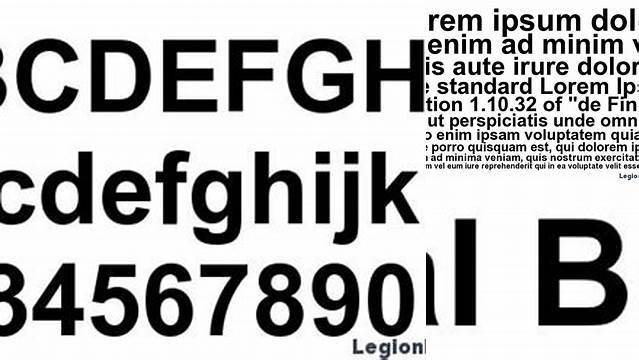
Legion Fonts: Unleashing The Power Of Arial Bold
Hey everyone! Today, we're diving deep into the world of legion fonts arial bold. This isn't just about a font; it's about a design choice, a statement, and a whole lot of visual impact. Get ready to explore the nuances, the best practices, and everything you need to know to harness the power of Arial Bold for your projects. Buckle up, because we're about to embark on a font-tastic journey!
1. What Exactly Are Legion Fonts?
Alright, let's start with the basics. When we talk about legion fonts arial bold, we're essentially referring to the use of Arial Bold within the context of design where it is heavily and consistently used. This means the font isn't just sprinkled in; it's a core element of the visual identity. Think of it as the foundation of your design, the rock-solid base upon which you build everything else. This strong foundation allows the overall message to be perceived as intended. So why Arial Bold? Well, Arial is a widely used, universally understood font, making it incredibly accessible. The 'Bold' part adds a sense of authority and draws immediate attention. This is particularly effective when you need to convey a message that demands attention and is meant to be clear and precise. This makes legion fonts arial bold an excellent choice for headlines, calls to action, and any text element you want to pop out from the page. It's not about being flashy; it's about being clear and getting your point across with maximum impact. Using it in the right context, the right size, and with the right spacing is crucial. We'll dive deeper into these aspects later, but just remember, the choice of Arial Bold isn't arbitrary. It's a deliberate design decision that carries weight.
It's also a sign of the times, a reflection of the accessibility and digital world. The widespread availability and readability of Arial make it a go-to choice for digital content. It's optimized for screen viewing, and it looks great on various devices, from smartphones to large monitors. Its legibility is unparalleled, which is why it's a favourite among designers and developers. It's a versatile font that adapts to different applications. Arial Bold is a workhorse font that's always ready to perform, whether it's for a website, a poster, or an app interface. The history of the Arial font family is also relevant; it was designed as a clone of Helvetica, another highly popular font. Therefore, Arial also shares the aesthetic appeal and the universal recognition of Helvetica, but often Arial is available for free, making it more accessible. The combination of boldness and simplicity makes Arial a powerful tool in your design arsenal. It's a classic choice that can be adapted to both modern and traditional designs. This makes legion fonts arial bold not just a design choice but a statement about the importance of clear and effective communication. This is about making your message resonate with the audience. By understanding the core principles of design and implementing them, you can create visually striking content.
2. Why Arial Bold is a Design Superhero
So, why is legion fonts arial bold a design superhero? Well, it boils down to a few key factors. First and foremost, it's the inherent clarity and readability. Arial Bold is like the font equivalent of a well-lit stage. Your audience immediately knows where to focus. It's impossible to ignore. This clarity makes it perfect for headlines, which grab attention, or for short, impactful statements. This is because it is instantly recognizable and easy to digest. It's accessible across different devices, ensuring your message is clear regardless of the screen or the operating system. Arial Bold also brings a sense of authority. The boldness commands attention. If you need to highlight something important, Arial Bold ensures your audience understands the significance. It's the design equivalent of underlining or highlighting, and it provides an immediate visual cue. It's also incredibly versatile. It adapts to a variety of design styles. From corporate websites to social media graphics, Arial Bold fits in. This is because it does not carry any specific baggage or aesthetic that limits its usage.
This versatility is crucial for modern design because it allows for dynamic and flexible designs. The design world is constantly changing, but Arial Bold has proven to be timeless. But the superhero qualities of legion fonts arial bold don't stop there. It is also incredibly easy to use, making it a designer's dream. The font is available on almost every device, so you can use it without worrying about compatibility issues. This ease of use extends to its pairing capabilities. Arial Bold blends well with other fonts in the Arial family and can be combined with a variety of other typefaces, ensuring the design has a distinct voice and personality. With it you can achieve balance and impact without complications. Ultimately, Arial Bold is a design superhero because it combines the best of both worlds: it's easily accessible, widely recognized, and incredibly versatile. It's the Swiss Army knife of fonts.
3. Mastering the Visual Impact of Arial Bold
To really make legion fonts arial bold shine, you've got to master its visual impact. Think of it as wielding a powerful weapon; if you don't know how to handle it, you can do more harm than good. The key is balance. While the boldness is a strong asset, overuse can overwhelm the viewer. Start by using Arial Bold strategically. Reserve it for key elements such as headlines, subheadings, or calls to action. This creates a visual hierarchy that guides the eye and emphasizes the essential information.
Next, consider the size and weight. Arial Bold doesn't need to be excessively large to make an impact. In fact, a slightly smaller, well-placed Arial Bold can be more effective than a massive, dominating headline. Consider the context of the overall design, the existing negative space, and the other design elements. Ensure the boldness is consistent, to prevent any visual noise. Use it to ensure an even visual flow. It's about creating a sense of rhythm and harmony. Finally, explore color. Arial Bold can work with almost any color, but contrast is key. Light text on a dark background and vice versa, that's your go-to for legibility. A well-chosen color palette can elevate your design. You can use it to highlight specific messages and create a more professional design. The goal is to enhance the visual impact of the font. Mastering the visual impact is a mix of art and science. It is a blend of your design instincts and the rules. With legion fonts arial bold, you can make a real difference in your design.
4. Arial Bold in Web Design: Best Practices
When it comes to web design, legion fonts arial bold can be a game-changer, but only if you follow best practices. First, accessibility is paramount. Ensure your Arial Bold text has enough contrast against the background. This guarantees readability for everyone, including users with visual impairments. Use contrast checkers to ensure your color choices meet accessibility standards.
Next, optimize for different devices. Your website should look good on desktops, tablets, and mobile phones. Test your design on various screen sizes to confirm that the Arial Bold text remains legible and doesn't break the layout. Also, remember that less is often more. Web users are notorious for scanning content. Therefore, use Arial Bold sparingly, for headlines and key points. Avoid using it for large blocks of text because it can be overwhelming. It's a great tool for grabbing attention, not for sustained reading. Lastly, focus on typography. Fine-tune your font size, line height, and letter spacing for optimal readability. This is a core aspect of web design, and if you do it right, it makes all the difference. This also improves the overall user experience. The readability of the text is what makes the user stay on your page. Arial Bold, combined with good typography, can make your website look professional and trustworthy.
5. Arial Bold vs. Other Bold Fonts: What's the Difference?
So, what sets legion fonts arial bold apart from other bold fonts? Well, it's a mix of familiarity, accessibility, and subtle design nuances. Compared to alternatives like Helvetica Bold or Futura Bold, Arial Bold often feels more neutral, less opinionated. This neutrality can be an advantage in certain situations. Arial Bold doesn't carry a strong personality, which can make it a good fit for a wide range of projects.
You must also consider the accessibility. The content must be clear to everyone. You also have to think about the mobile use. The font needs to look great on mobile devices. The use of Arial Bold should be timeless. By considering these factors, you will make your designs future-proof. The font will remain a timeless asset. The design will be readable and adaptable. The use of legion fonts arial bold will help you future-proof your designs. You will be able to create a lasting design. This will make your design accessible to everyone. You will also improve the design's impact.